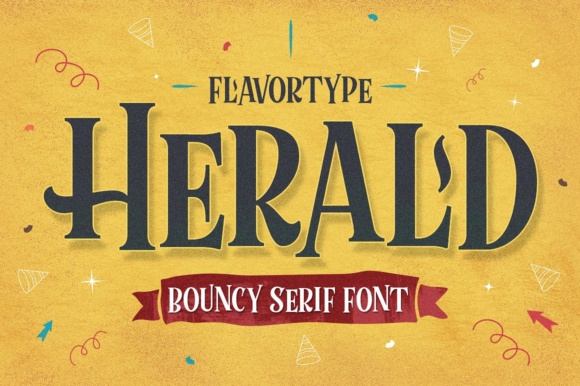
Behold, Herald Font - the typographic masterstroke that will transform your designs into captivating tales! A geometrically-crafted serif font, Herald's lively baseline dances with an energy that's both playful and enchanting. Unleash your creativity and let Herald's whimsical charm weave an aura of storybook magic into your projects.
Herald Font: A Symphony of Whimsy and Delight
- Embark on a typographic adventure with Herald Font, a display font family that captivates with its unique personality.
- As its name suggests, Herald Font proclaims your designs with a playful elegance, adding a touch of whimsy and intrigue to every character.
- Its bouncy baseline dances across the page, creating an irresistibly dynamic rhythm that draws the reader's eye and ignites their imagination.
- Whether crafting enchanting invitations, whimsical posters, or captivating branding, Herald Font weaves a spell of visual delight.
Herald Font: Your Key to Eclectic Appeal
- Herald Font's eclectic nature shines through in its versatility, effortlessly adapting to a myriad of design styles.
- Embrace the light-hearted spirit and create designs that radiate joy and laughter.
- Infuse your projects with a mischievous touch and let Herald Font's impish charm work its magic.
- From playful illustrations to quirky logos, Herald Font breathes life into your creative visions, transforming them into unforgettable masterpieces.
Herald Font: A Typographic Tapestry of Enchantment
- With Herald Font, your designs become immersive experiences, transporting your audience to worlds of wonder and imagination.
- Its atmospheric punch elevates your creations beyond the ordinary, creating an ambiance that captivates and enchants.
- Unleash the storyteller within and let Herald Font's characters dance and twirl, captivating your audience with every stroke.
- Herald Font is not just a font; it's a gateway to typographic enchantment, a key to unlocking the boundless realms of creative expression.